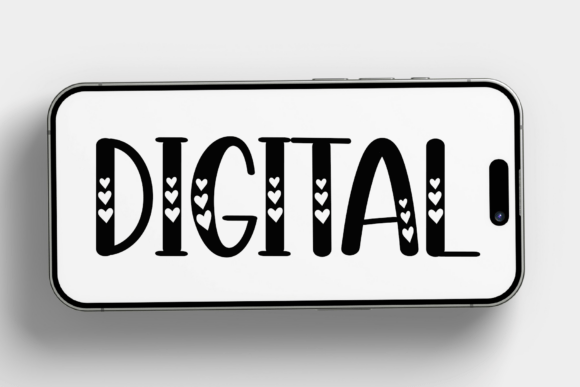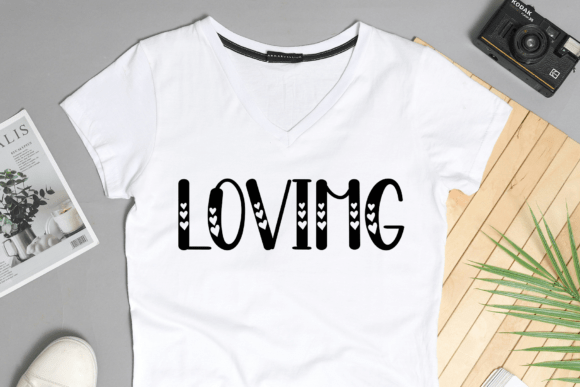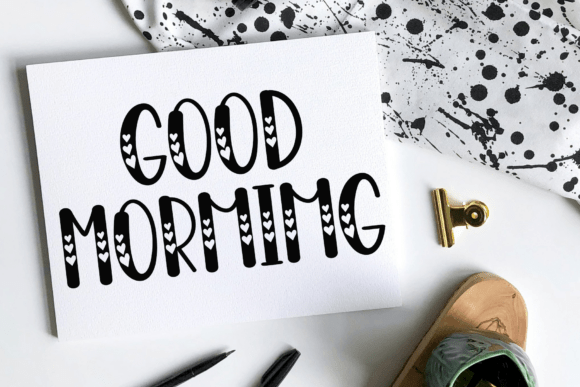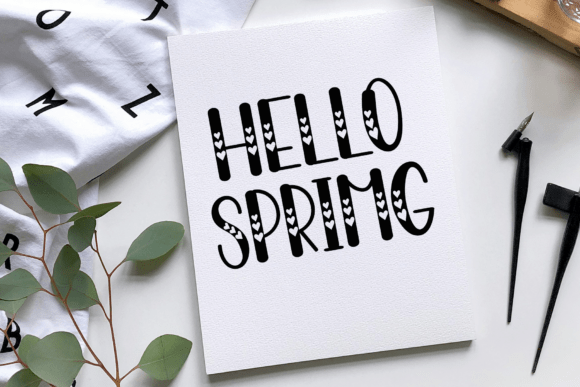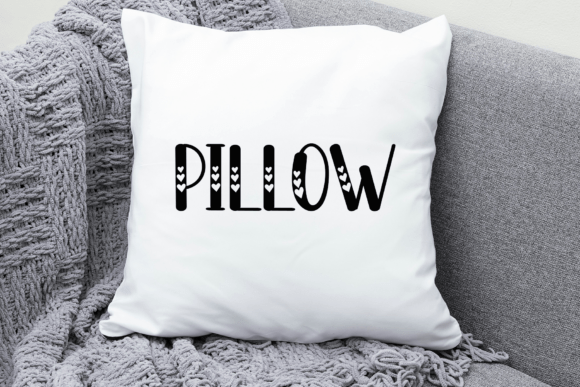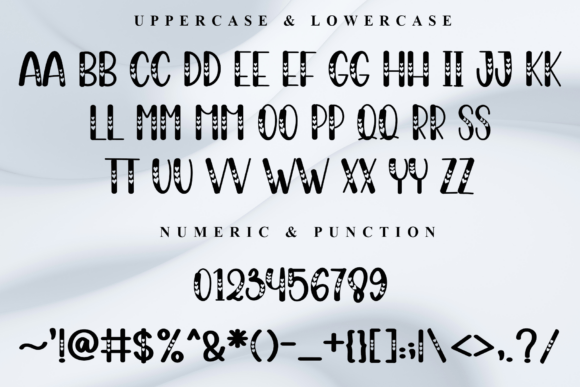
Introducing Birthday Font: The Ultimate Festive Typeface for Your Holiday Designs
Are you looking for a font that embodies the spirit of celebration and joy? Look no further than Birthday Font, a festive and merry typeface designed to bring a touch of magic to your designs. With its decorative elements and whimsical flair, this font is perfect for adding a dash of enchantment to your holiday-themed projects.
Celebrate with a Touch of Whimsy
Birthday Font is more than just a typeface – it’s an experience. Its unique design combines playful and elegant elements, making it perfect for a wide range of applications, from greeting cards and gift tags to holiday-themed posters and social media graphics. Whether you’re a designer, crafter, or DIY enthusiast, this font is sure to inspire your creativity and add a festive touch to your work.
- Decorative Elements: Birthday Font features intricate decorative elements that add a touch of luxury and sophistication to your designs.
- Whimsical Flair: The font’s playful and whimsical design makes it perfect for creating festive and fun designs that capture the spirit of the holiday season.
- Wide Range of Applications: From greeting cards and gift tags to holiday-themed posters and social media graphics, Birthday Font is perfect for a wide range of design projects.
Why Choose Birthday Font?
With so many fonts to choose from, why should you choose Birthday Font for your holiday designs? Here are just a few reasons:
- Unique Design: Birthday Font features a unique and eye-catching design that’s sure to stand out from the crowd.
- Versatile: Birthday Font is perfect for a wide range of design projects, from small-scale crafts to large-scale commercial designs.
- High-Quality: The font is designed to high-quality standards, ensuring that your designs look professional and polished.
Tips for Using Birthday Font
Here are a few tips for getting the most out of Birthday Font:
- Experiment with Different Sizes: Birthday Font looks great in a variety of sizes, from small and delicate to large and bold.
- Combine with Other Fonts: Try combining Birthday Font with other fonts to create a unique and eye-catching design.
- Use for Headings and Titles: The font’s decorative elements make it perfect for use in headings and titles.
- Don’t Be Afraid to Get Creative: Birthday Font is designed to inspire creativity, so don’t be afraid to experiment and try new things.
If you’re looking for a font that captures the spirit of the holiday season, look no further than Birthday Font. With its decorative elements, whimsical flair, and PUA encoding, this font is perfect for adding a touch of magic to your designs. Whether you’re a designer, crafter, or DIY enthusiast, Birthday Font is sure to inspire your creativity and help you create stunning holiday designs.